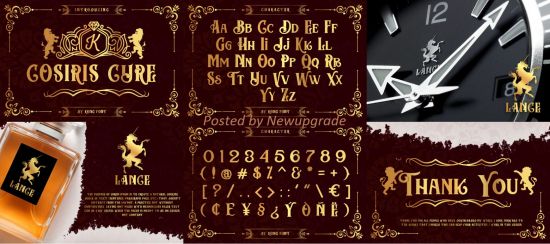
Cosiris Cure feels equally charming and elegant. Whether you’re looking for fonts for Instagram or calligraphy scripts for DIY projects, this display font will turn any creative idea into a true piece of art!